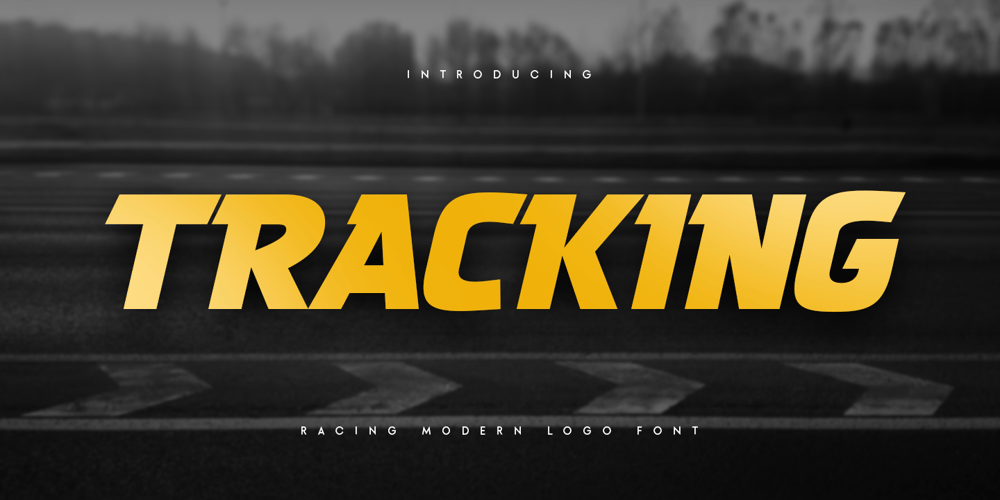
Tracking
Tracking font
Tracking Font Family was designed by Zamroni Hamzah and published by Sensatype Studio. Tracking contains 2 styles and family package options. Faster Racing Modern Logo Font is a Modern Logo Racing Font that Modern, Racing and unique characters are ready for Race event, that you can combine to get any variations and unique shapes easily just in seconds with great characters. What’s Included: FASTER (Regular & Italic) Character set A-Z All Uppercase Numerals & Punctuation Accented Characters (West Europe) Works on PC & Mac Recommended using Adobe Illustrator or Adobe Photoshop. Wish you enjoy our font. ๐Ÿ™‚